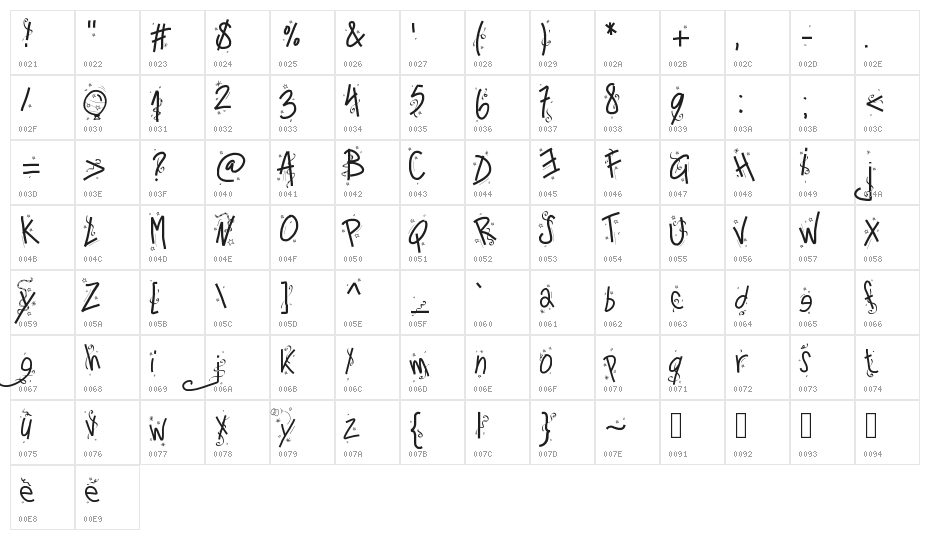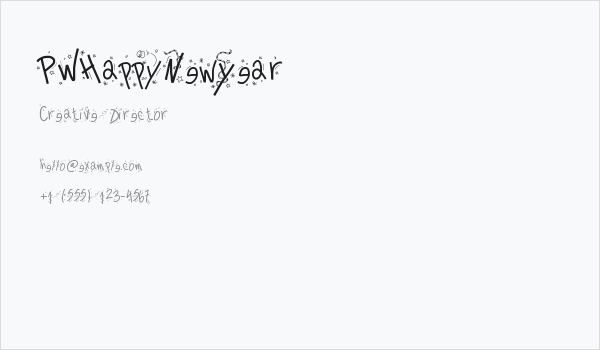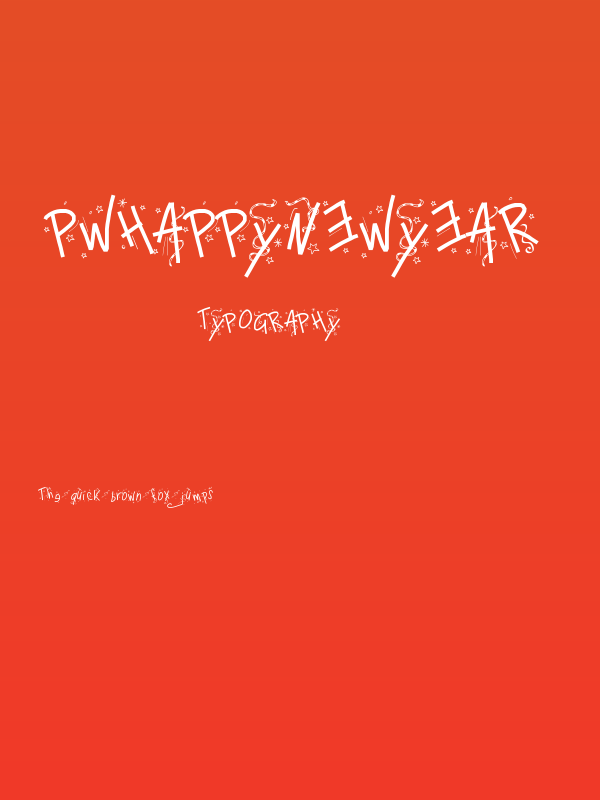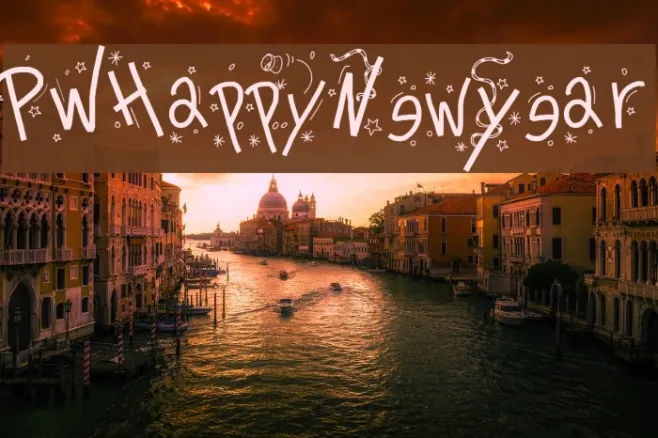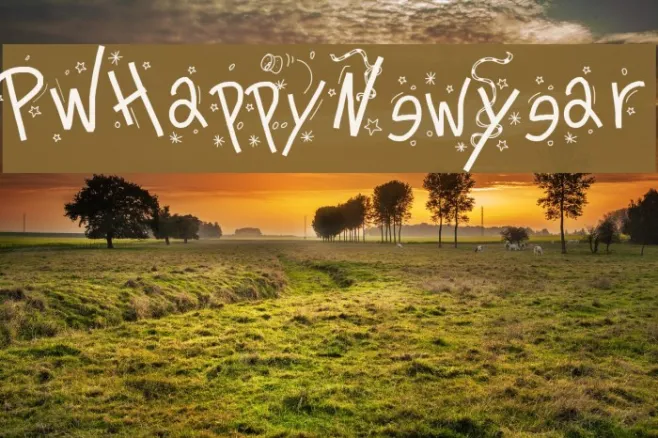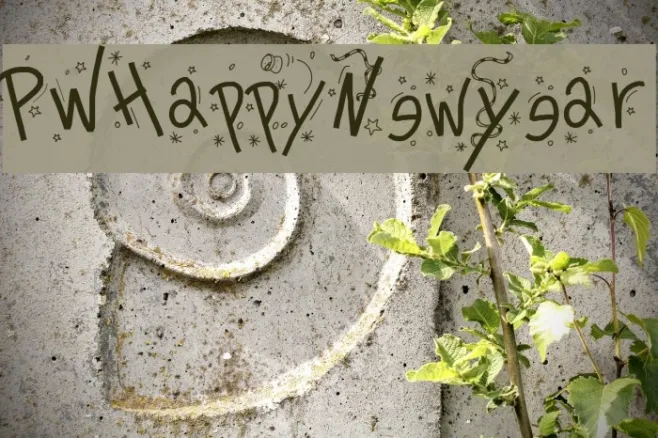
PWHappyNewYear Font
PWHappyNewYear Description
This whimsical and playful font features a lively and energetic design, characterized by its irregular, hand-drawn style. The letters are adorned with swirls, stars, and dots, adding a festive and celebratory feel. The uppercase and lowercase letters are uniquely styled, with varying heights and angles, creating a dynamic and spontaneous appearance. The numbers and special characters maintain the same playful aesthetic, making this font ideal for creative and fun projects. Its decorative elements make it stand out, perfect for occasions that require a touch of joy and excitement.
| Proposed Projects | Ideal for greeting cards, party invitations, festive banners, and playful branding. |